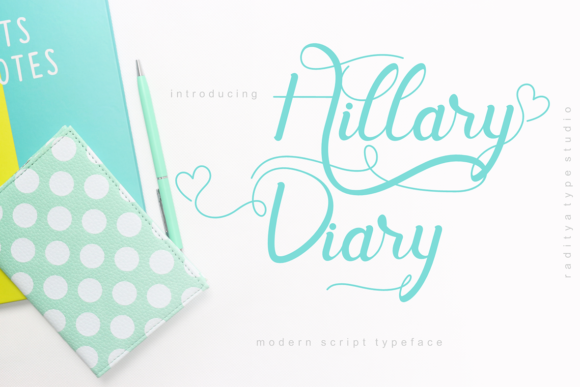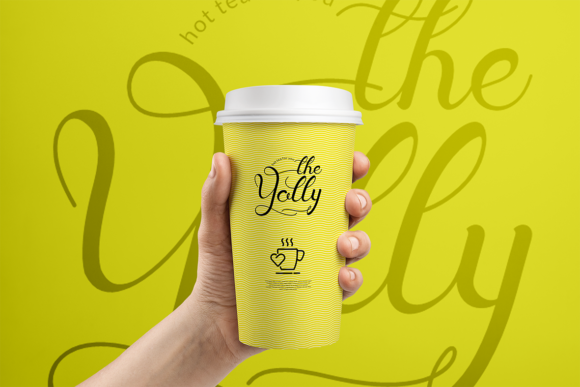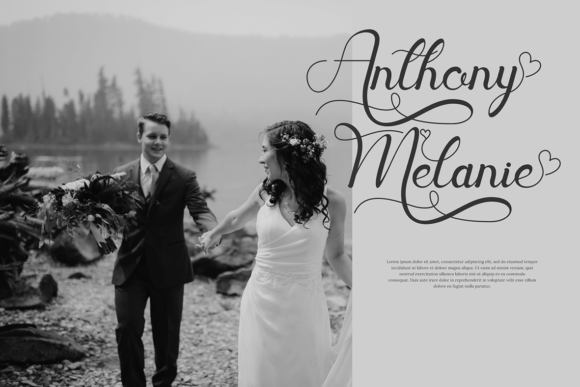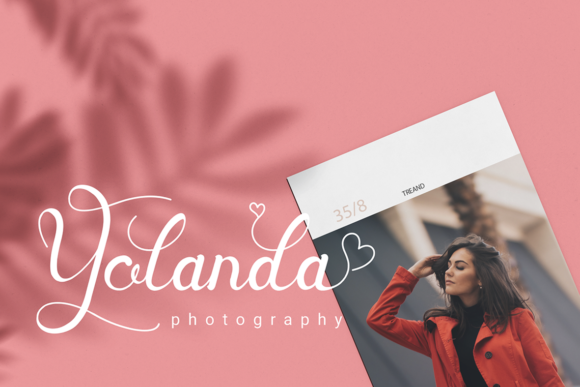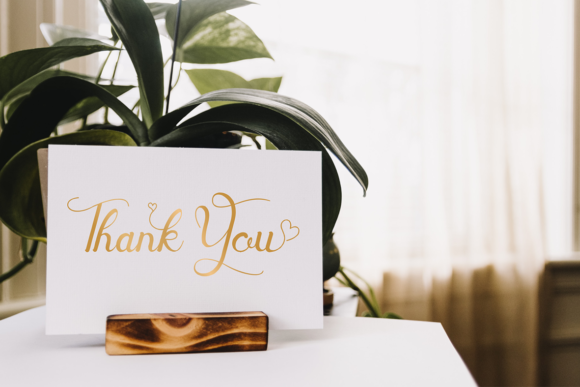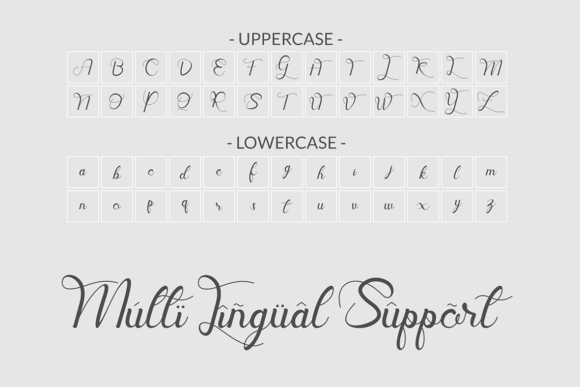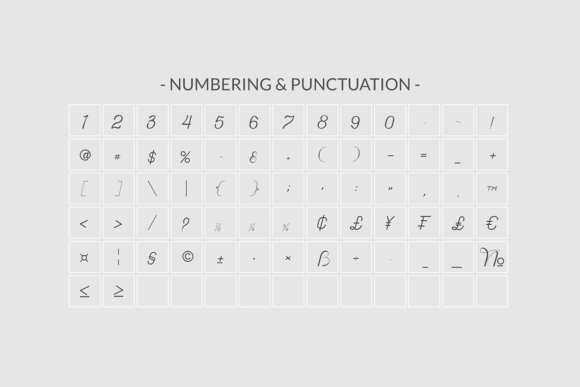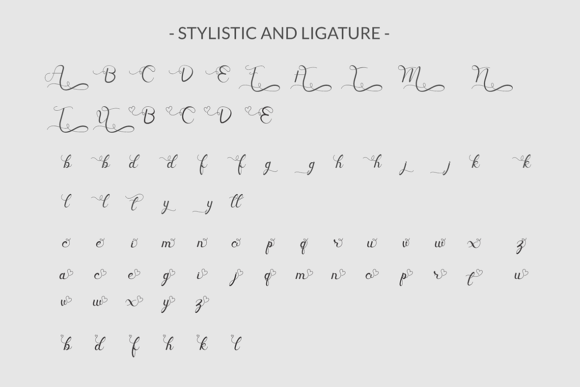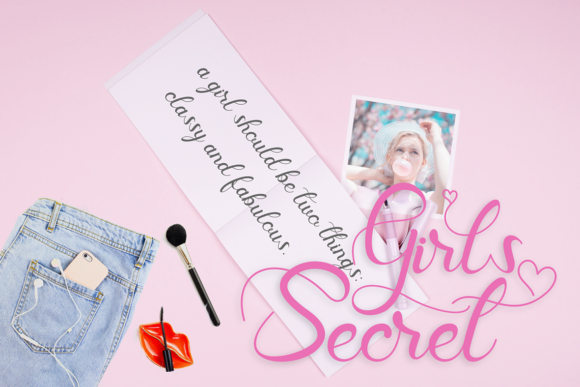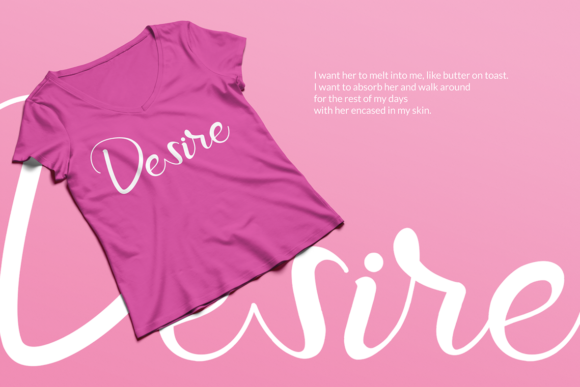
Hillary Diary Font
About Hillary Diary Font
Hillary Diary is a modern script font perfect for a variety of projects. Get inspired by its exciting curves and playful charm!